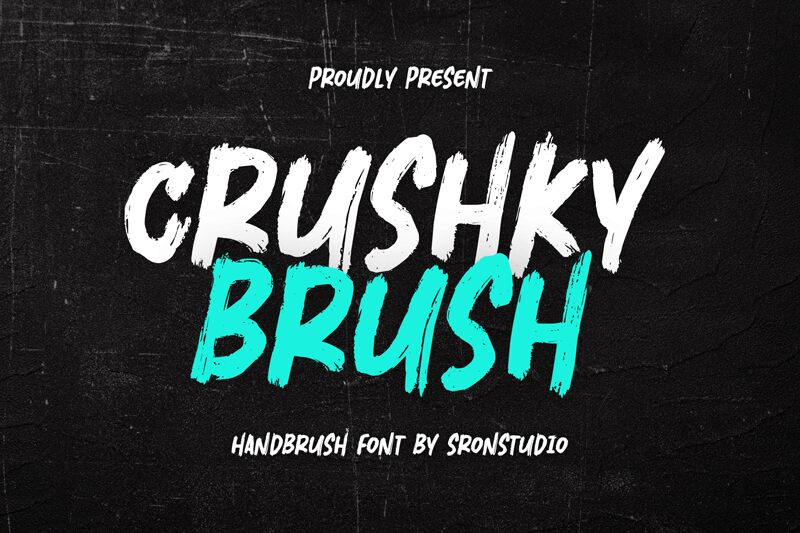
Crushky Brush, a captivating creation by Sronstudio, exudes a raw, expressive energy that instantly commands attention. This dynamic brush-style font boasts an organic, hand-crafted aesthetic, with each stroke conveying a sense of spontaneity and artistry. The bold, sweeping letterforms possess a striking visual presence, effortlessly blending modern sophistication and rustic charm.
The Crushky Brush font is a versatile choice, lending itself well to a diverse range of design applications. Its bold, attention-grabbing nature makes it an excellent selection for headlines, logos, and branding initiatives, where it can effectively capture the audience's imagination. Similarly, its expressive qualities make it a captivating option for editorial layouts, book covers, and creative projects that seek to convey a sense of authenticity and artistic flair.